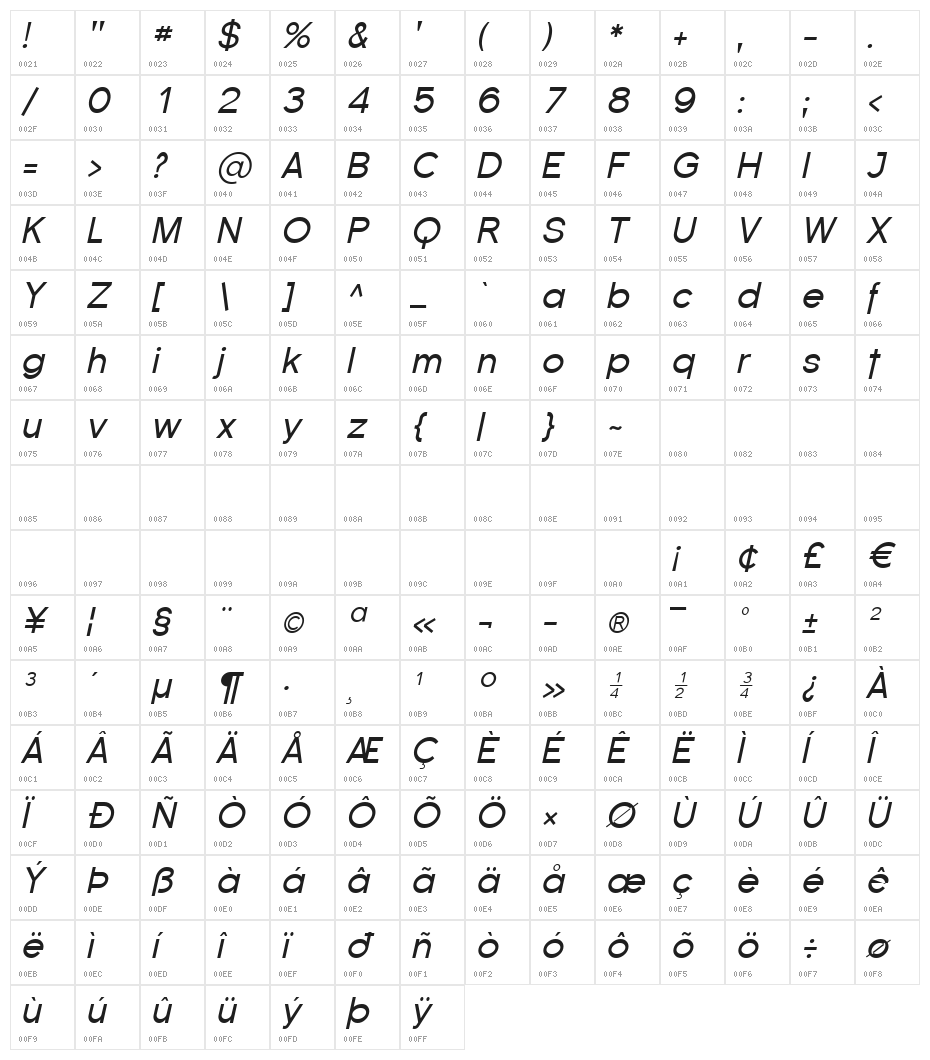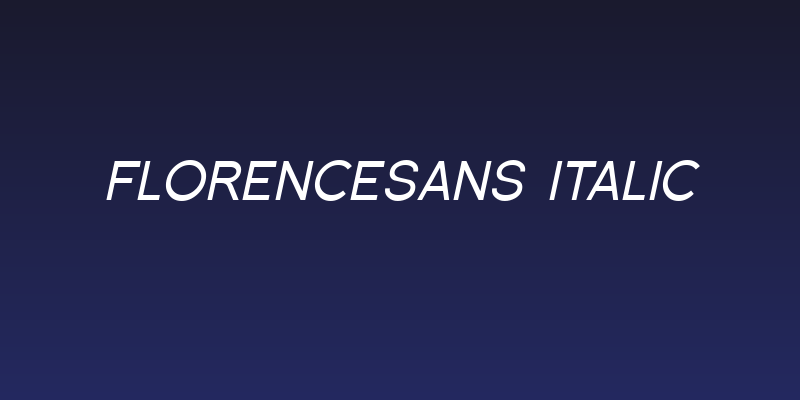
Florencesans Italic Font
Florencesans Italic Description
This font features a sleek and modern sans-serif design with a distinct italic slant, giving it a dynamic and forward-leaning appearance. The characters are clean and streamlined, with uniform stroke widths that contribute to a cohesive and professional look. The uppercase and lowercase letters maintain a consistent style, while the numerals are clear and easy to read. Special characters are well-integrated, ensuring versatility in various applications. The overall design is minimalistic yet impactful, making it suitable for contemporary design projects.